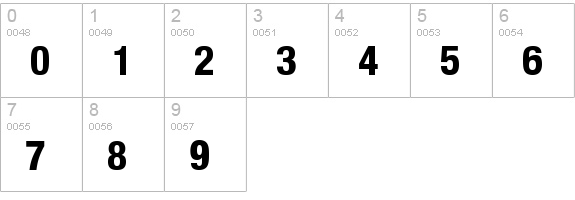
Olnova-ExtraBoldCond Font Details
Olnova-ExtraBoldCond is a striking and modern typeface that exudes strength and confidence. Its extra bold weight and condensed design make it perfect for making a bold statement in headlines, titles, and other display applications. The sharp, clean lines of this font give it a contemporary and edgy feel, while still maintaining a high level of readability. What sets Olnova-ExtraBoldCond apart is that it is not only visually impactful but also free for anyone to use. Whether you're a designer looking to add a powerful touch to your projects or a business seeking a distinctive branding element, this font is a versatile choice that won't break the bank. You can easily download Olnova-ExtraBoldCond for free at FontsMarket.com, making it accessible to all who appreciate quality typography without the hefty price tag. Don't miss out on this opportunity to enhance your designs with a font that commands attention and leaves a lasting impression.